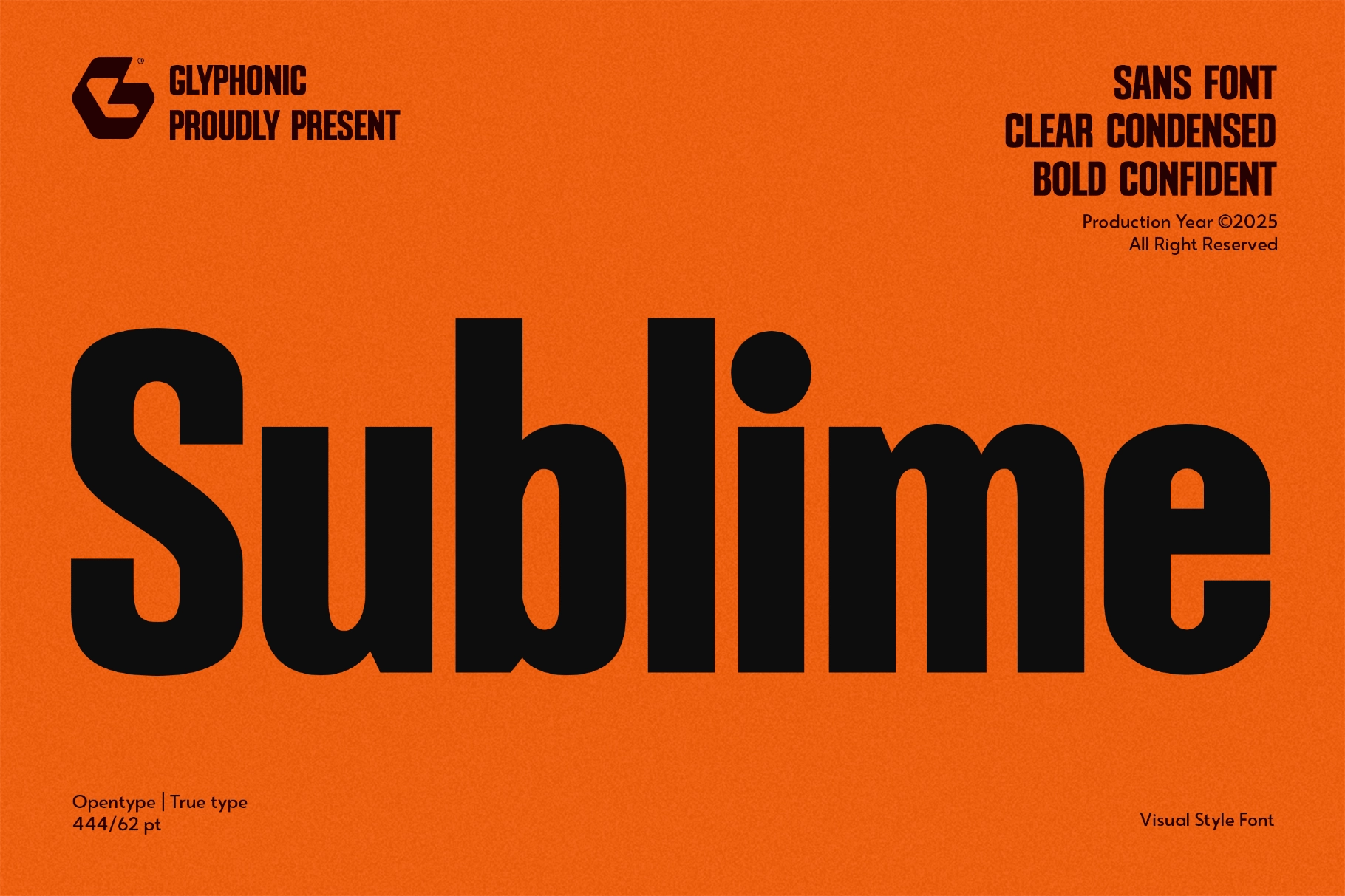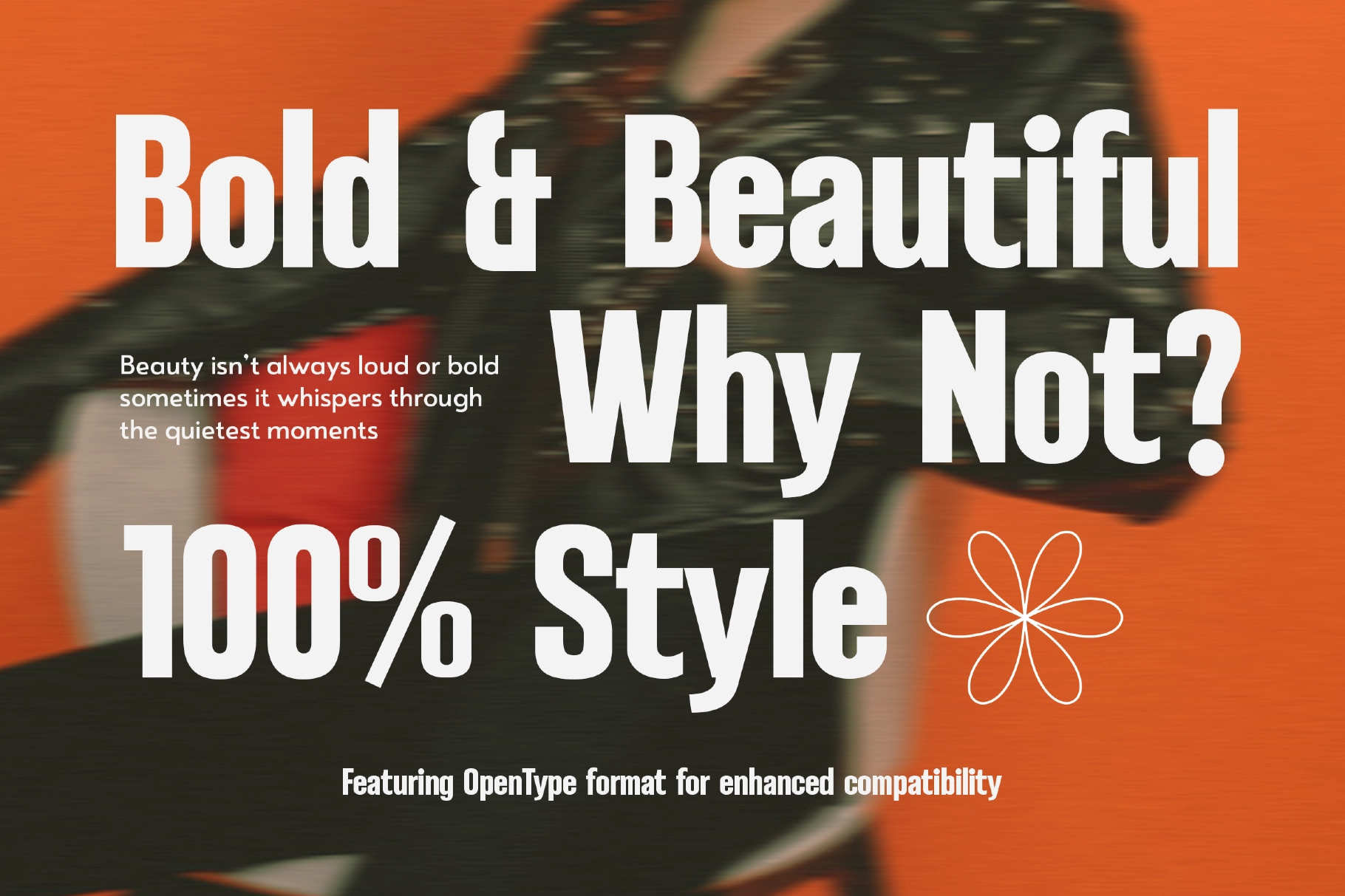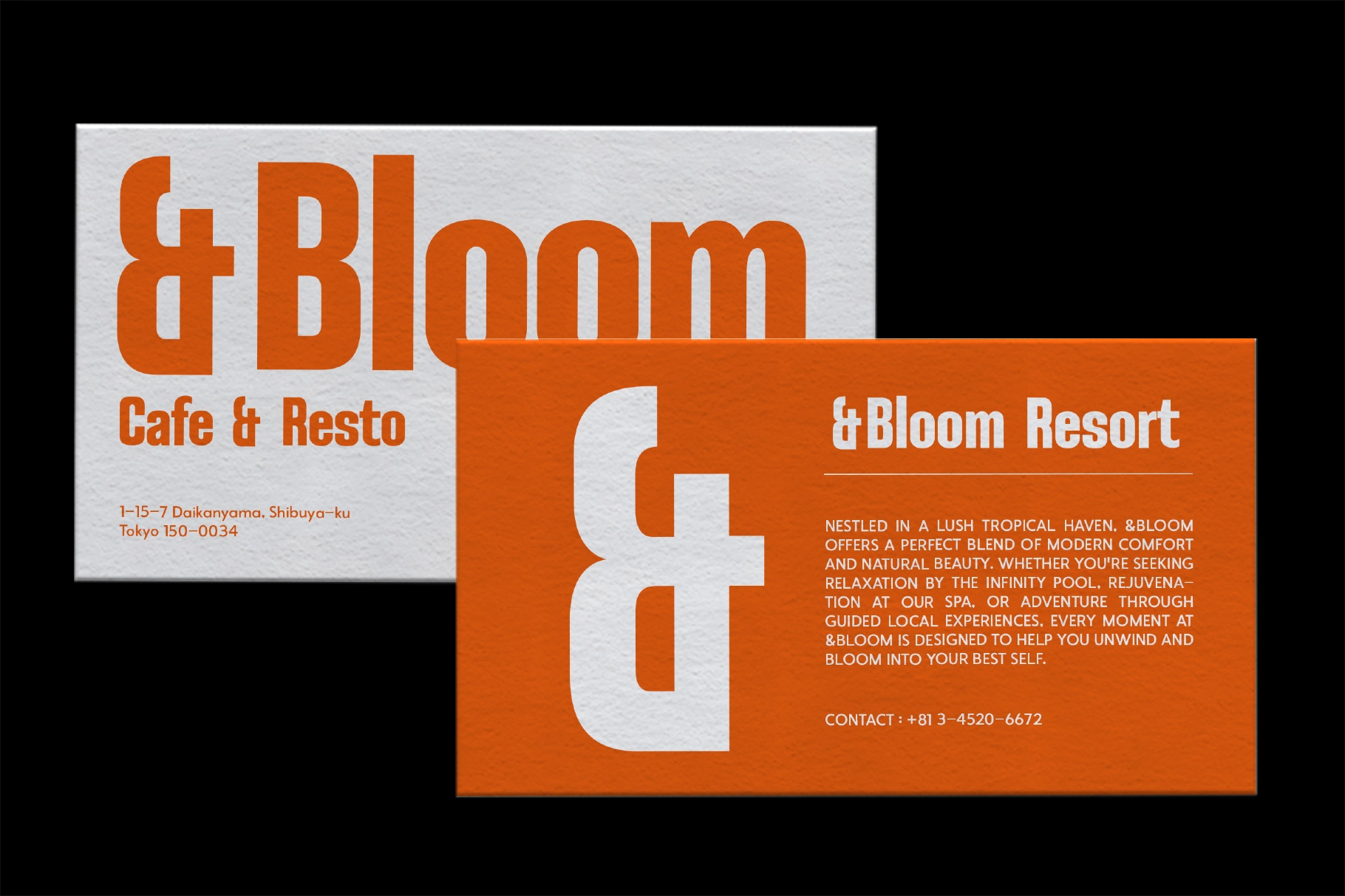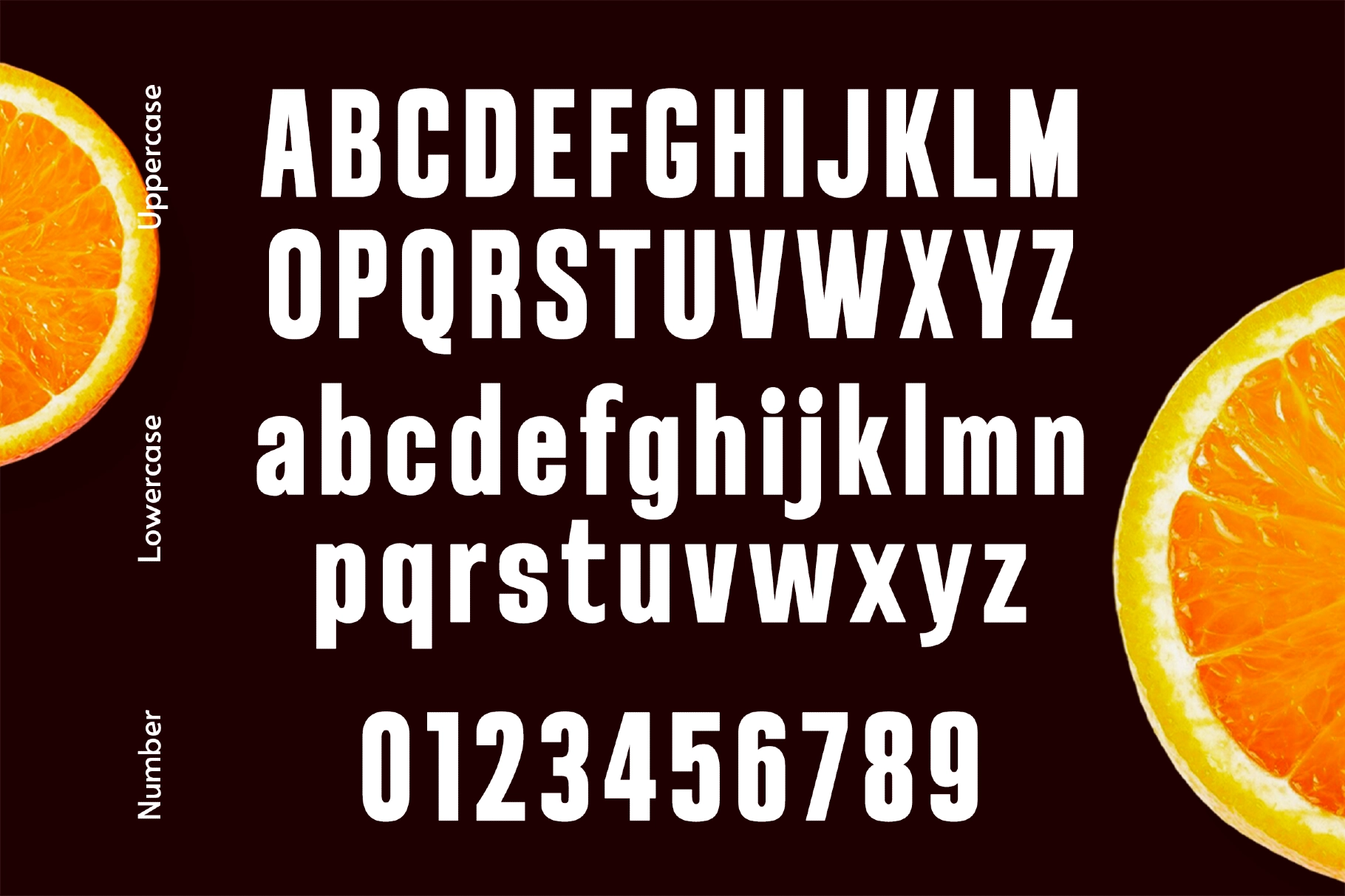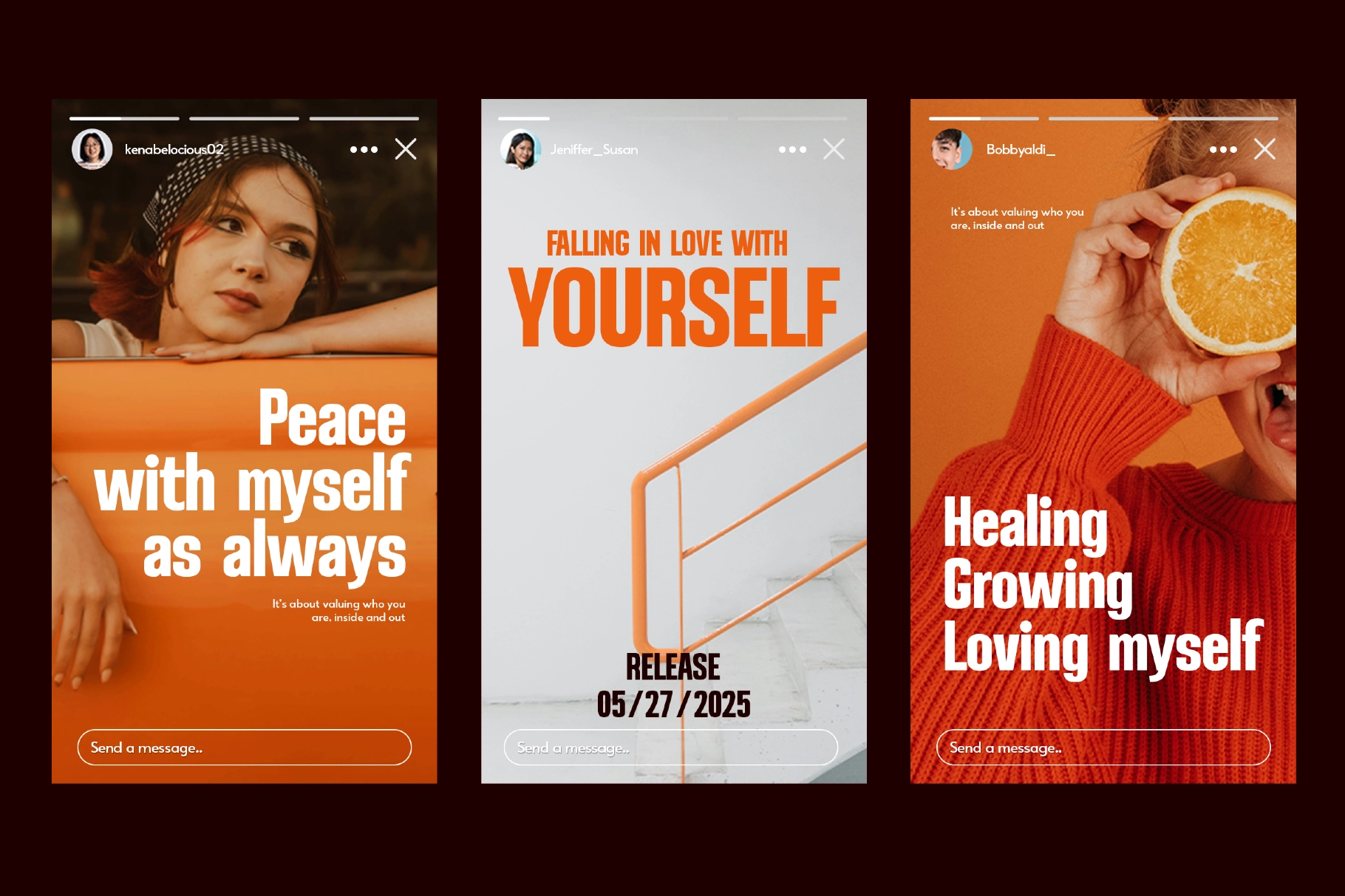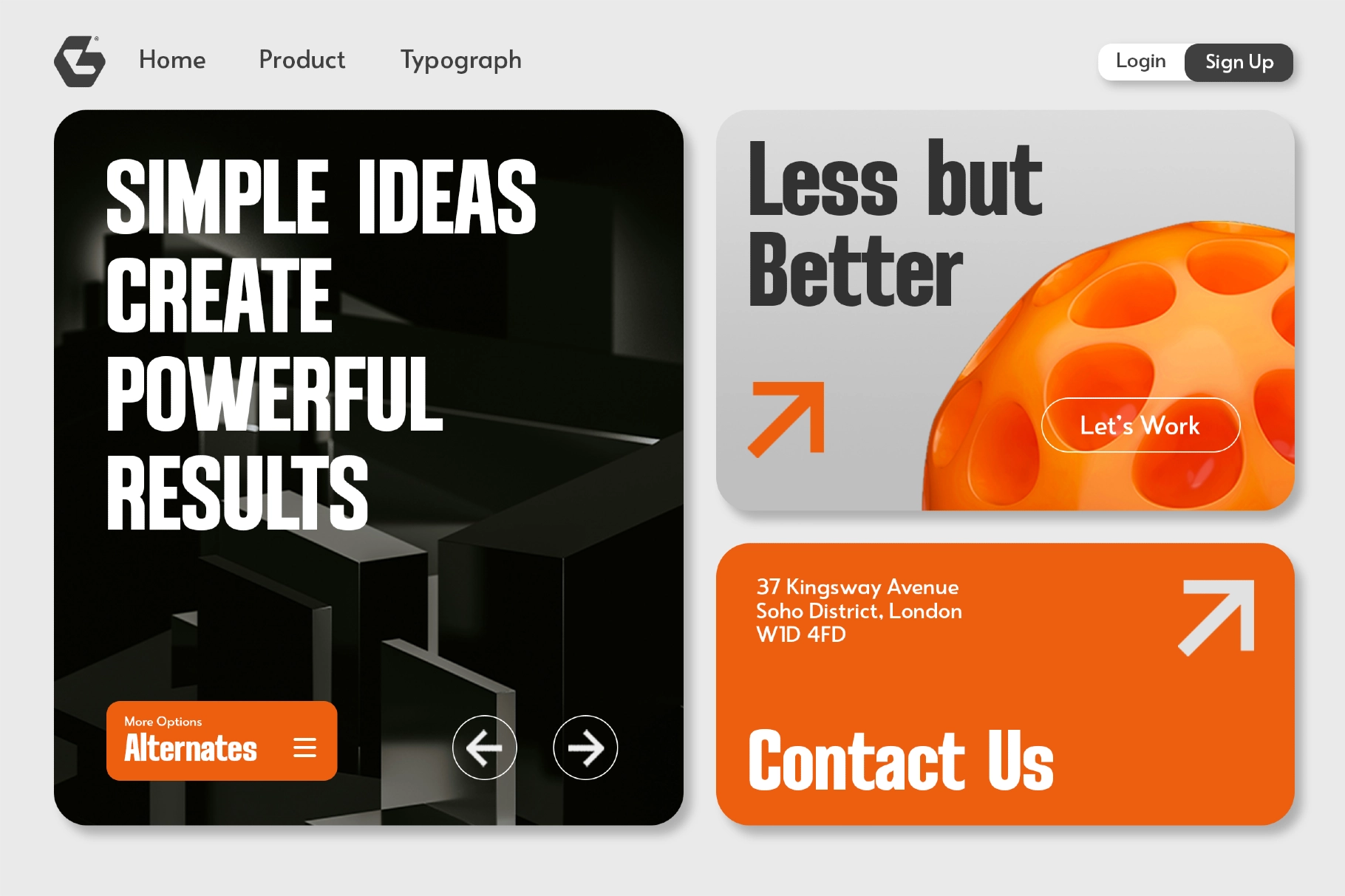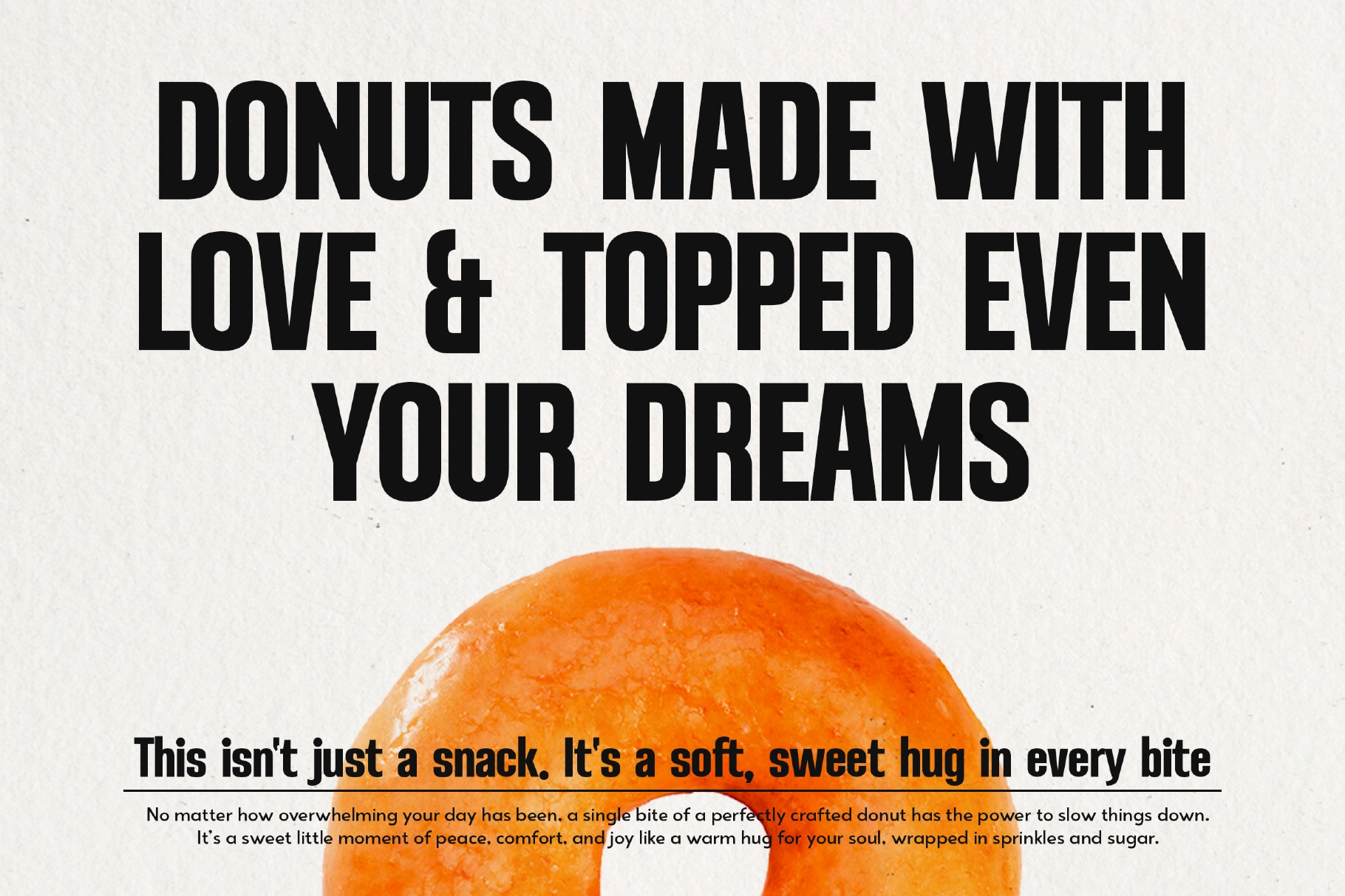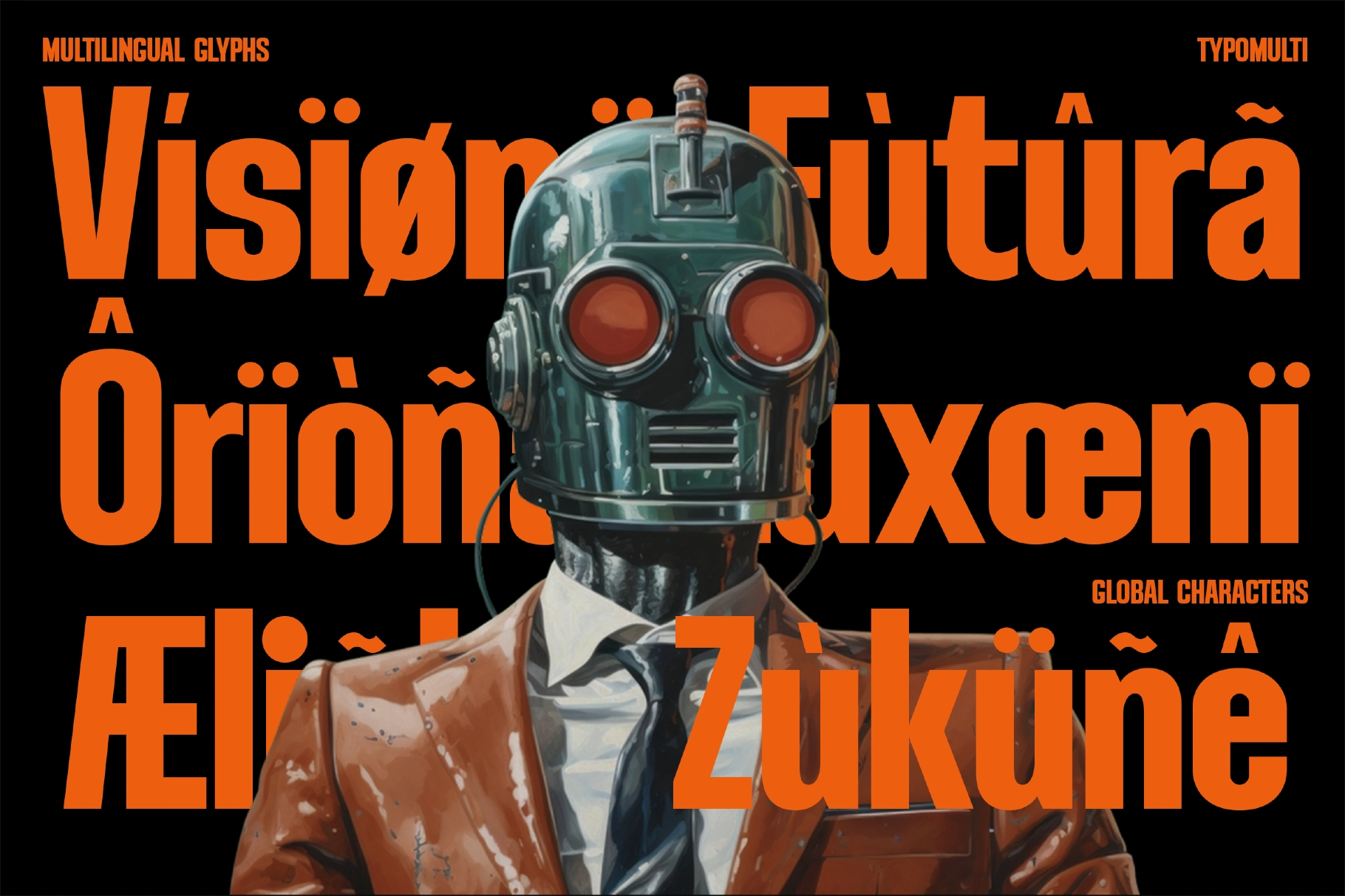
Sublime - Bold Condensed Font
Sublime
Sumblime is a Bold Condensed Sans Font that blends modern Bold with Condensed style. Perfectly suited for headlines, branding, logos, packaging, editorial layouts, it’s crafted to leave a lasting impression. With its high contrast strokes, modern sans, and future style, Sublime brings personality and sophistication to any design.
Whether you're designing for fashion, lifestyle, or artistic visuals, this typeface offers versatility and refined style.